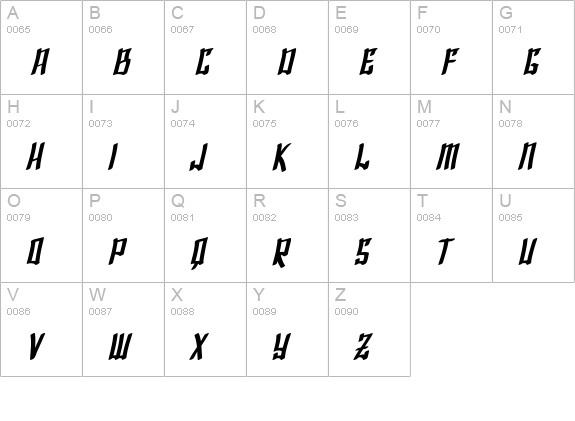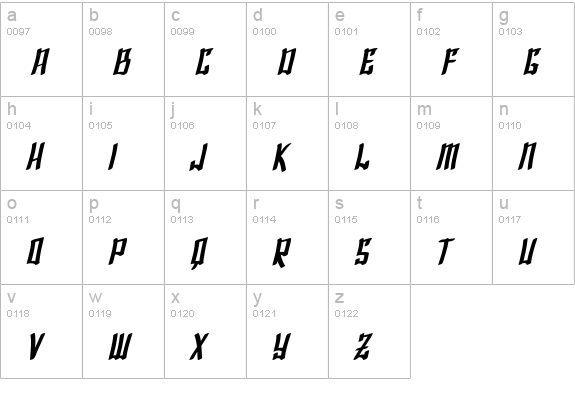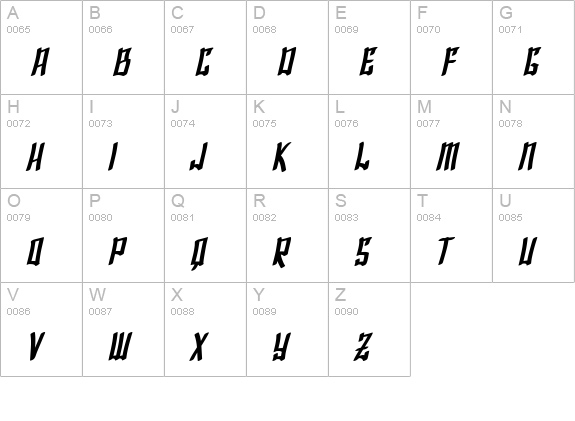
SF Shai Fontai Bold Oblique Font Details
SF Shai Fontai Bold Oblique is a strong, high-contrast, italic variant in the SF typeface family \xE2\x80\x94 well suited to headlines, attention-grabbing titles, and strong calls-to-action.
SF Shai Fontai Bold Oblique font is a stunning and versatile typeface that is perfect for adding a touch of elegance and sophistication to any design project. Its bold and slanted letterforms exude confidence and uniqueness, making it an ideal choice for headlines, logos, posters, and branding materials. This font combines the classic elements of a serif typeface with a modern twist, resulting in a harmonious blend of tradition and innovation. The bold weight adds a strong and impactful presence, while the oblique slant adds a dynamic and energetic feel to the text. One of the standout features of SF Shai Fontai Bold Oblique font is that it is available for free download at FontsMarket.com. This means that designers and creatives can easily access and utilize this exceptional typeface without any cost. Whether you are a professional designer or a hobbyist, having access to high-quality fonts for free is a game-changer. With SF Shai Fontai Bold Oblique font, you can effortlessly elevate your designs and captivate your audience. Its bold and oblique nature adds a sense of drama and intrigue, making it a great choice for projects that require a bold statement. Whether you're designing a magazine cover, a website header, or a business card, this font is sure to leave a lasting impression. So why wait? Head over to FontsMarket.com and download SF Shai Fontai Bold Oblique font for free. Start exploring its endless possibilities and unlock a world of creativity. With this font in your toolkit, you'll have the power to create visually stunning designs that stand out from the crowd.